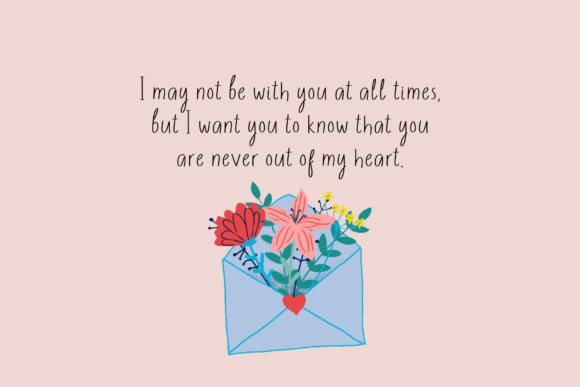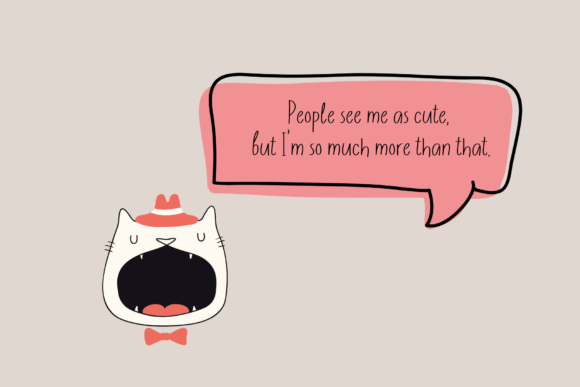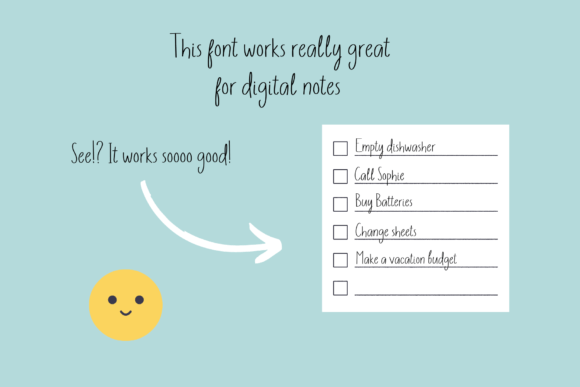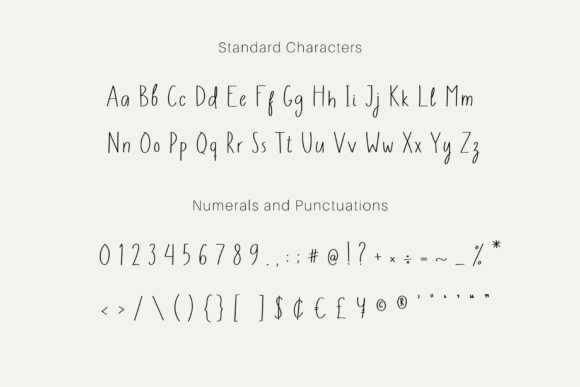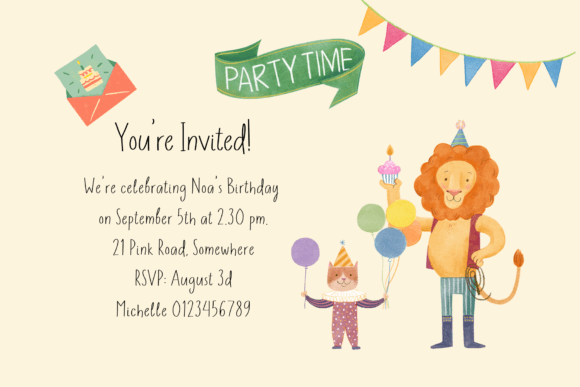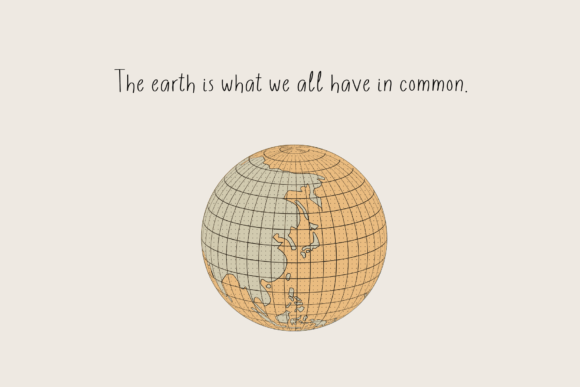
Add a Touch of Whimsy to Your Designs with Connoisseur Font
Are you tired of using the same old fonts in your designs? Do you want to add a touch of personality and charm to your projects? Look no further than Connoisseur Font, a delightful and adorable font that’s perfect for designers and crafters who want to bring a playful energy to their work.
What is Connoisseur Font?
Connoisseur Font is a unique and charming font that’s designed to add a touch of whimsy to your designs. With its playful and curly letters, this font is perfect for projects that need a dash of personality and charm. Whether you’re creating greeting cards, invitations, social media graphics, or branding materials, Connoisseur Font is the perfect choice.
Features of Connoisseur Font
So, what makes Connoisseur Font so special? Here are just a few of its features:
- Playful and curly letters: Connoisseur Font features playful and curly letters that add a touch of whimsy to your designs.
- Perfect for creative projects: This font is perfect for designers and crafters who want to add a personal touch to their projects.
- Versatile: Connoisseur Font can be used for a wide range of projects, from greeting cards and invitations to social media graphics and branding materials.
Uses for Connoisseur Font
So, what can you use Connoisseur Font for? The possibilities are endless! Here are a few ideas to get you started:
- Greeting cards: Add a touch of whimsy to your greeting cards with Connoisseur Font.
- Invitations: Make your invitations stand out with this playful and charming font.
- Social media graphics: Add a dash of personality to your social media graphics with Connoisseur Font.
- Branding materials: Use this font to create unique and memorable branding materials, such as logos and business cards.
- Crafting projects: Connoisseur Font is perfect for crafters who want to add a personal touch to their projects, such as scrapbooking and journaling.
Why Choose Connoisseur Font?
So, why should you choose Connoisseur Font for your designs? Here are just a few reasons:
- Unique and charming: This font is truly one-of-a-kind, and its playful and curly letters will add a touch of whimsy to your designs.
- Versatile: This font can be used for a wide range of projects, from greeting cards and invitations to social media graphics and branding materials.
Tips for Using Connoisseur Font
Here are a few tips for using Connoisseur Font in your designs:
- Use it sparingly: Connoisseur Font is a playful and charming font, but it can be overwhelming if used too much. Use it sparingly to add a touch of whimsy to your designs.
- Pair it with other fonts: Connoisseur Font pairs well with other fonts, such as sans serif fonts and script fonts. Experiment with different pairings to find the one that works best for your design.
- Experiment with colors: Connoisseur Font looks great in a variety of colors, from bright and bold to pastel and soft. Experiment with different colors to find the one that works best for your design.
In conclusion, Connoisseur Font is a unique and charming font that’s perfect for designers and crafters who want to add a touch of whimsy to their designs. With its playful and curly letters, this font is perfect for projects that need a dash of personality and charm. Whether you’re creating greeting cards, invitations, social media graphics, or branding materials, Connoisseur Font is the perfect choice. So why wait? Download Connoisseur Font today and add some sweetness to your designs!